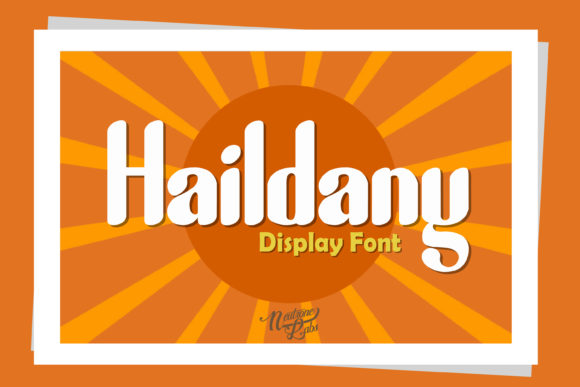
Introducing Haildany: The Display Font That Will Captivate Your Audience
Immerse yourself in the captivating world of Haildany, an enchanting display font crafted with precision and a touch of whimsy by NeutroneLabs. This remarkable font family is meticulously designed to elevate your creative endeavors.
Haildany's clean lines and subtle quirks dance harmoniously, creating a captivating aesthetic that is sure to leave a lasting impression. Its versatility extends far beyond the realms of logos and branding, gracing your social media presence and DIY projects with an unforgettable charm.
Step into a world where imagination takes flight. With Haildany, your words transform into captivating works of art, inviting your audience on a journey of discovery and delight. Let your creativity soar as you unleash the full potential of this enchanting font.